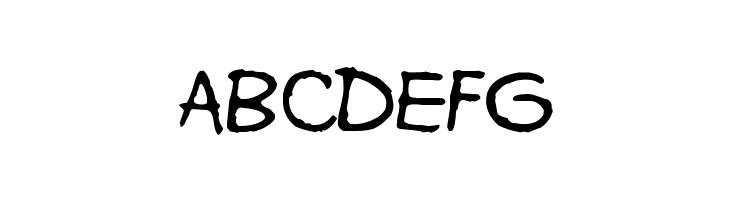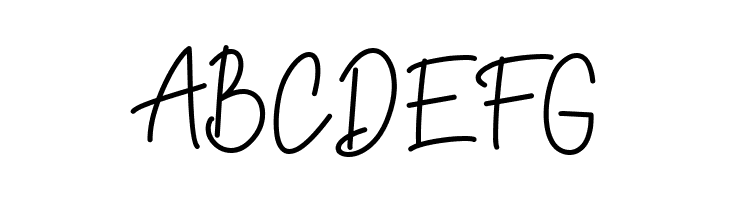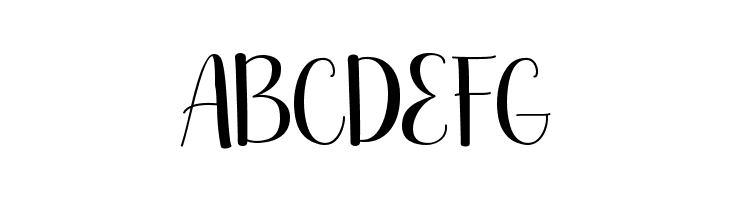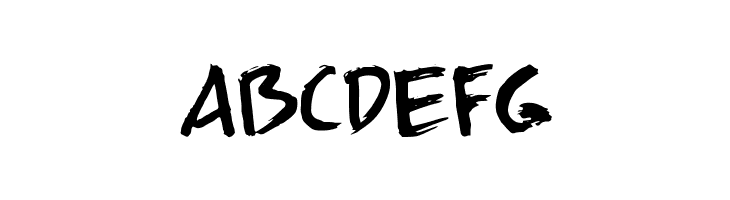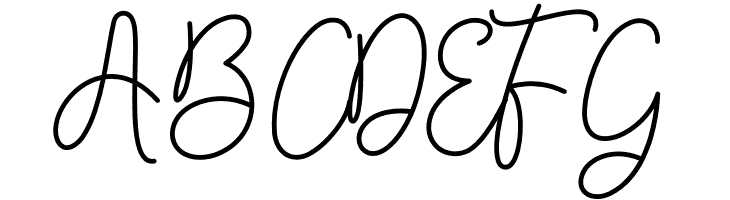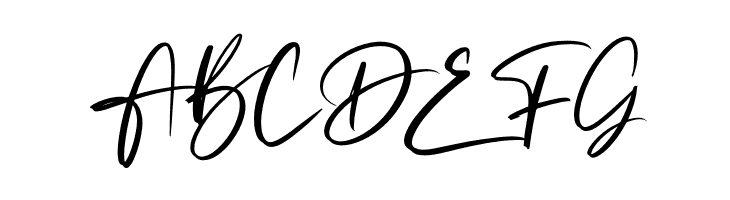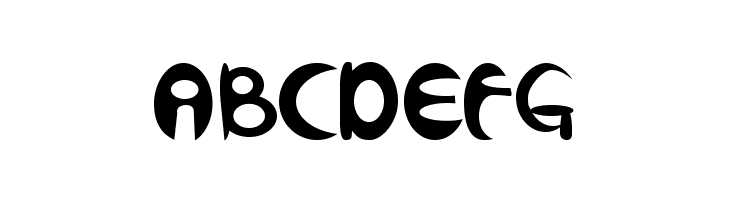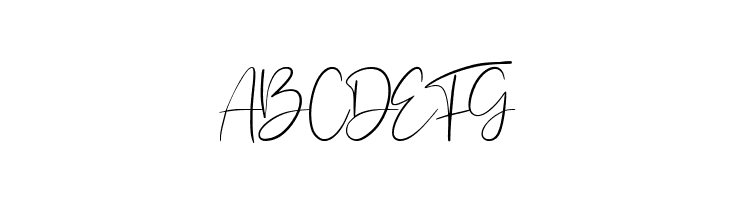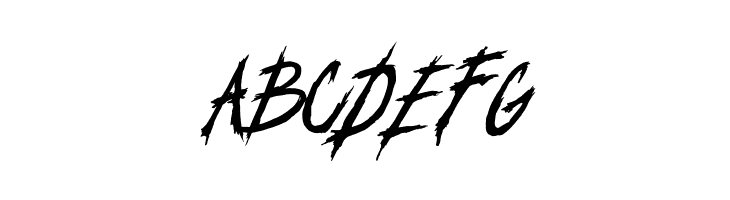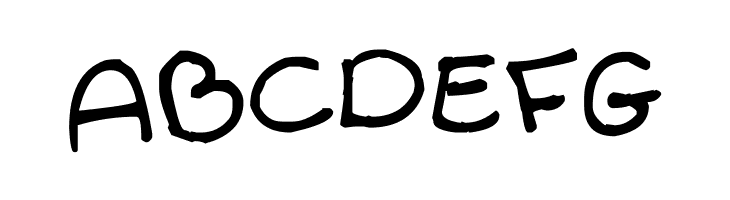
A bold, rounded font with a modern and friendly aesthetic.
A casual, handwritten-style font with irregular strokes and playful character spacing.
A distressed, slab serif font with a rugged, worn appearance.
A bold, distressed font with splattered, grunge-style characters.
A playful, jagged font with an icy, adventurous feel.
A jagged, ice-inspired font with a playful and bold design.
A clean, geometric font with consistent stroke widths and a modern aesthetic.
A modern, geometric sans-serif font with clean lines and balanced spacing.
A decorative font with a geometric, triangular pattern creating each character.
A decorative serif font with textured vertical lines and sharp serifs.
A decorative font with bold uppercase letters enclosed in star shapes.
A playful, bold font with rounded edges and a hand-drawn feel.
Bold geometric sans-serif with clean, modern lines.
A bold, rounded font with a futuristic and modern style.
A casual, handwritten font with a playful and informal style.
A bold, playful font with rounded, whimsical characters.
A bold, jagged font with high contrast and dynamic slanted letters.
A bold, hand-drawn font with a playful and expressive style.
A bold, brush-like font with an expressive and dynamic style.
A bold, playful handwritten font with a casual and energetic style.
A modern, rounded font with a playful and cohesive design.
A decorative font with mythical creature silhouettes, perfect for fantasy-themed projects.
A dynamic and elegant script font with fluid, connected letterforms.
A dynamic handwritten font with fluid strokes and a natural flow.
A flowing, cursive font with a natural handwritten style.
A bold, monospaced font with a playful and modern aesthetic.
A bold, italicized monospaced font with a modern and playful style.
A monospaced, italic font with a playful and modern style.
A monospaced font with a playful and approachable design, ideal for coding.
A graceful script font with hollow interiors and flowing, interconnected characters.